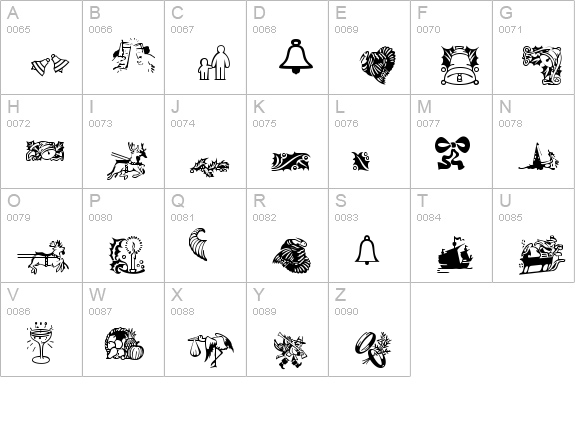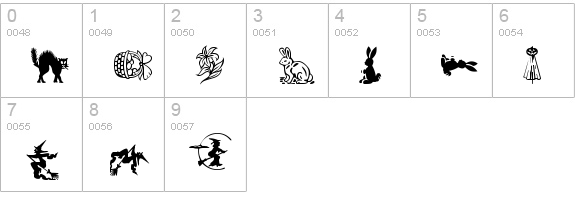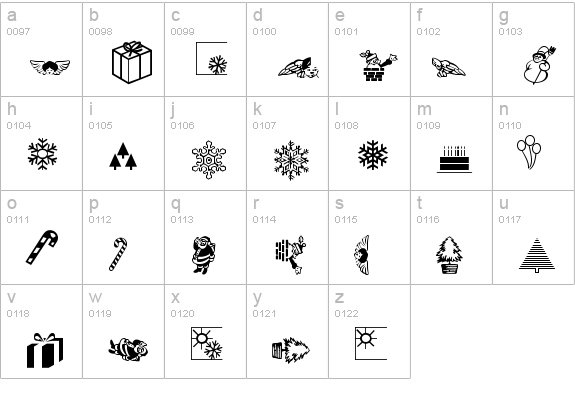
HolidaysP01 Font Details
Introducing the exquisite HolidaysP01 font, a delightful typeface that exudes whimsy and charm. Perfect for adding a touch of creativity to your designs, this font features playful curls and elegant swirls that captivate the eye. With its unique style and versatility, HolidaysP01 is ideal for a wide range of projects, from greeting cards to branding materials. One of the best things about HolidaysP01 font is that it is completely free to download at FontsMarket.com. This means you can access this stunning font without any cost, making it a valuable addition to your font collection. Whether you're a seasoned designer or just starting out, HolidaysP01 font is sure to inspire and enhance your creative projects. Don't miss out on this fantastic opportunity to elevate your designs with the beautiful HolidaysP01 font. Download it for free today at FontsMarket.com and let your creativity soar to new heights.